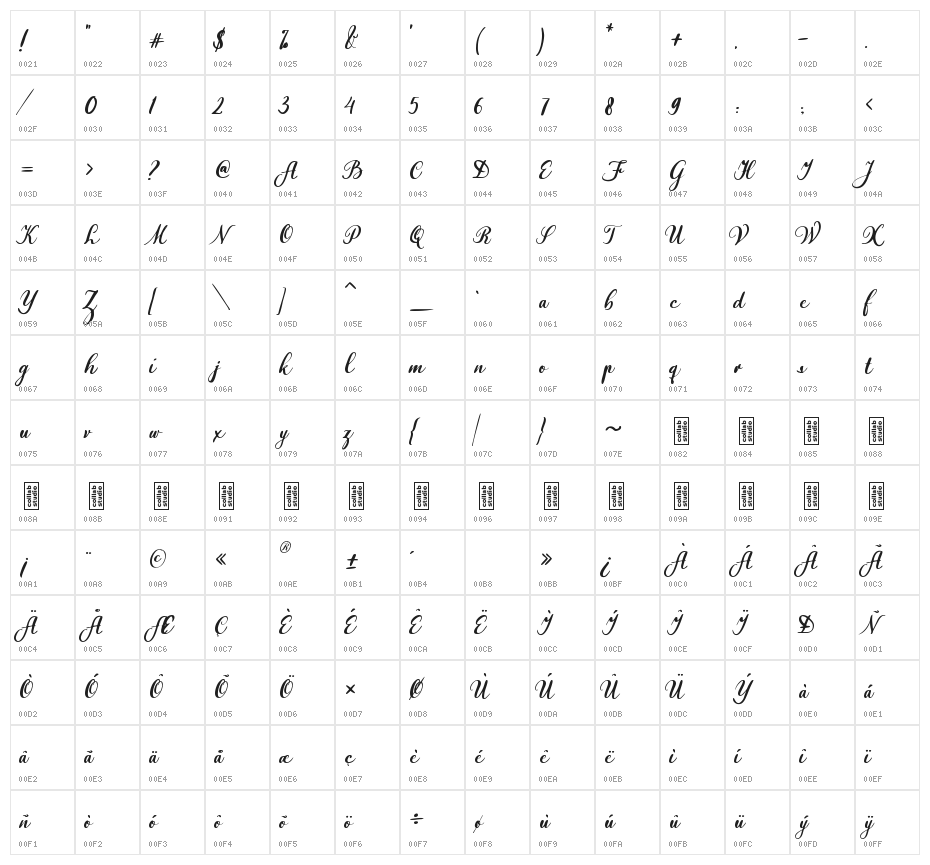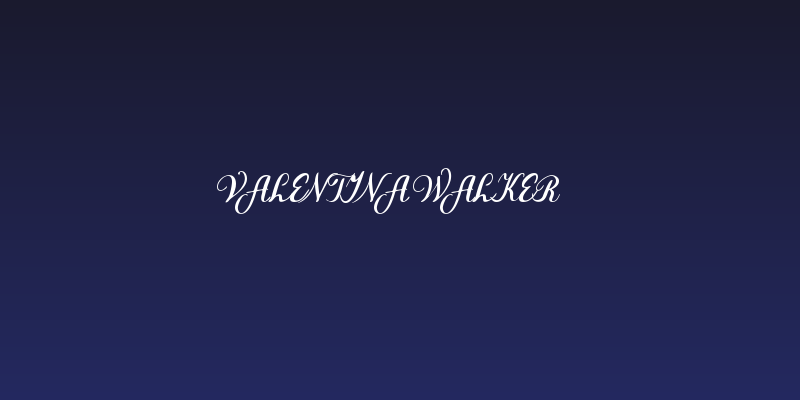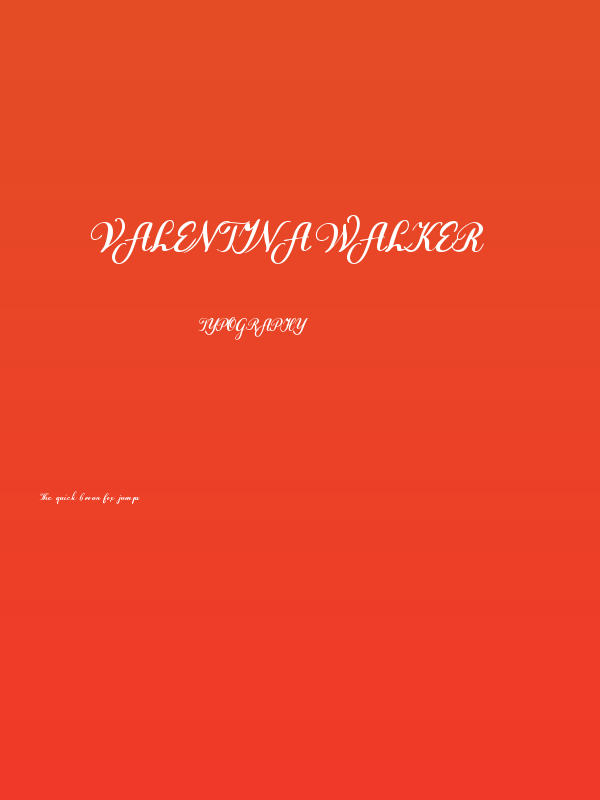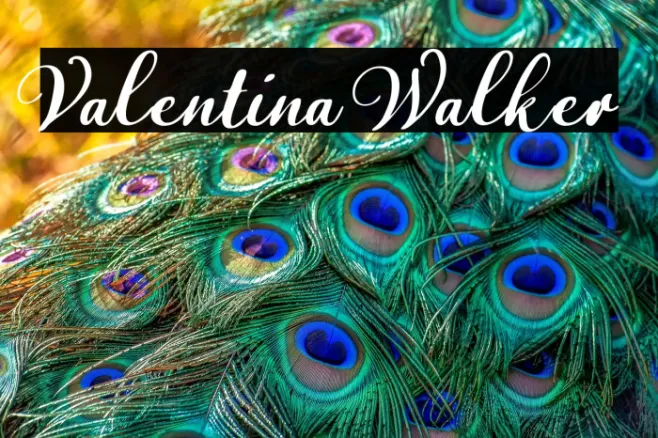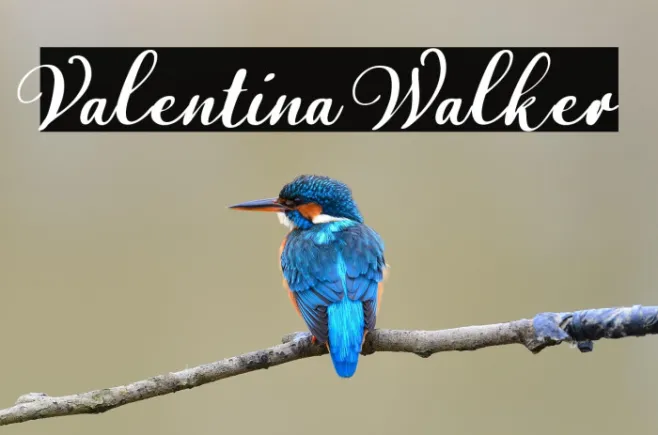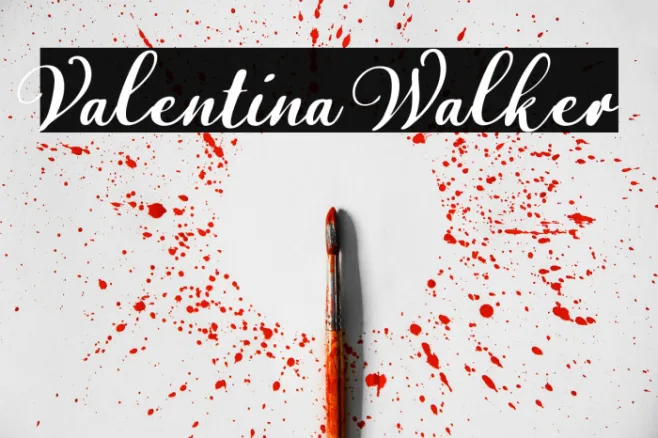
Valentina Walker Font
Valentina Walker Description
This font exhibits a classic script style with elegant, flowing curves and a calligraphic touch. The uppercase letters are ornate, featuring intricate loops and swashes that add a sense of sophistication and grace. The lowercase letters maintain a cohesive flow, with smooth connections between characters, enhancing readability while preserving the decorative nature. The numerals and special characters are consistent with the overall style, offering a harmonious blend of elegance and functionality. This font is ideal for projects that require a touch of class and refinement.
| Proposed Projects | Wedding invitations, luxury branding, elegant stationery, and formal event programs. |